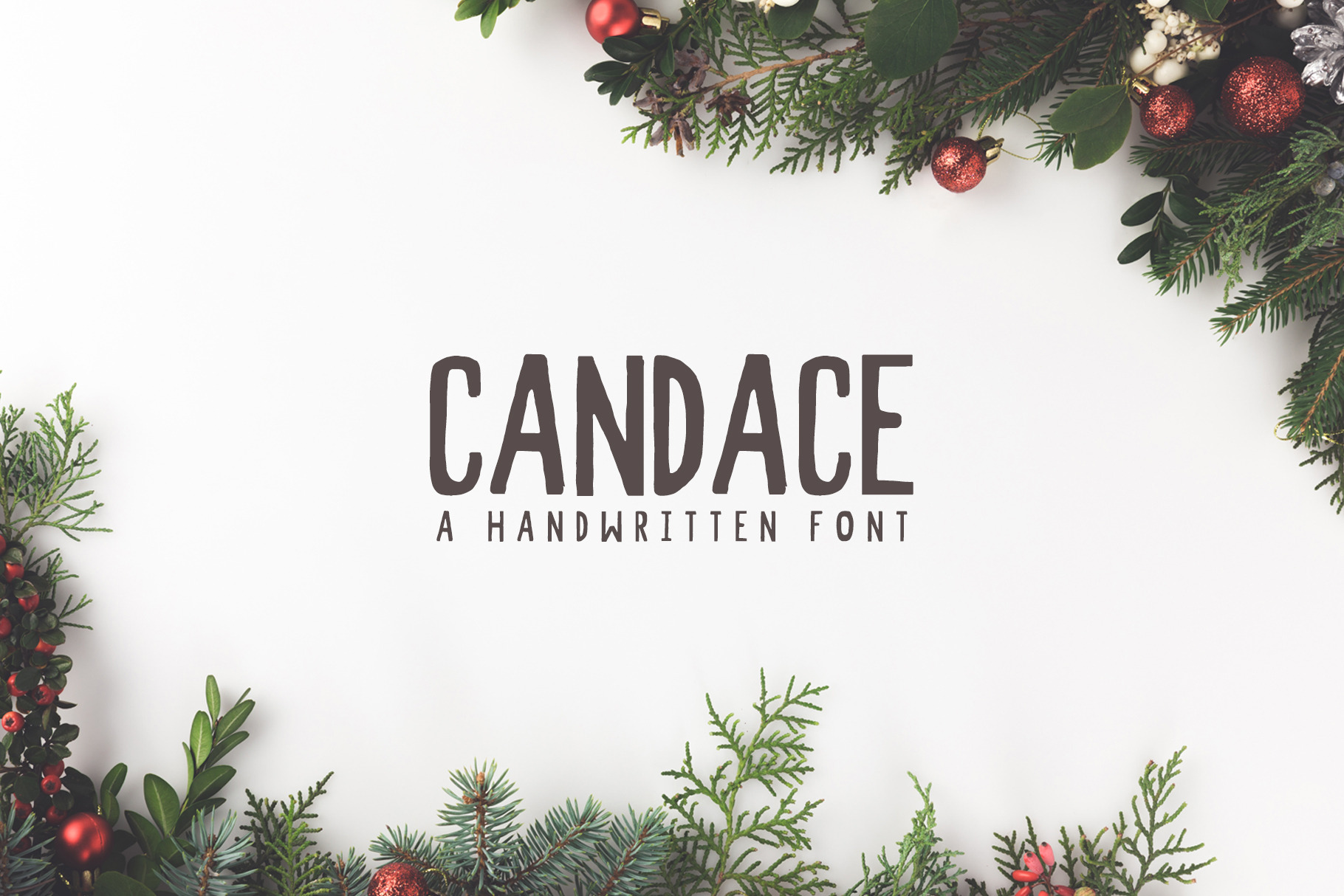
Candace A Handwritten Font + Bonus
Candace is a modish handwritten font. This font comes with a complete set of lowercase, uppercase Numbers and Alternates. It is ideal for prints, logos, quotes, badges, labels, packaging design, blog, websites, designs, headlines, banners, posters, printings, T-shirts, magazines, promotional product, templates, etc.
Candace Font Features:
- Uppercase Multilingual Letters
- Lowercase Multilingual Letters
- Non English Characters ( Latin Extended A )